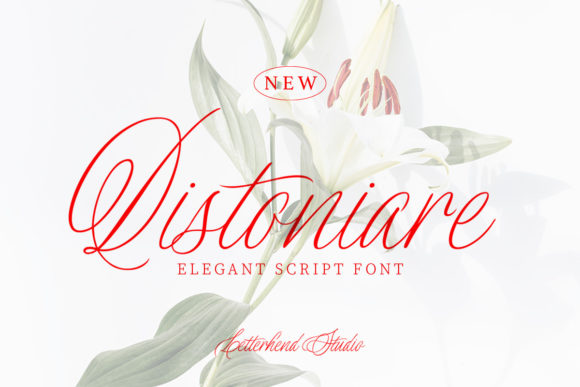
Welcome to the realm of Distoniare Script Font, a captivating creation from the mind of letterhend. This isn't just any font; it's an artistic masterpiece that transforms words into enchanting tapestries. Each letter is a brushstroke of elegance, flowing with the grace of a dancer. Get ready to witness the magic unfold as Distoniare takes your designs to breathtaking heights.
Unleash your creativity with Distoniare, the ultimate text font for weddings. Its delicate curves and enchanting swashes evoke the romance and charm of a timeless love story. Imagine your wedding invitations, menus, and programs adorned with Distoniare's graceful touch. Your guests will be captivated by the beauty and elegance of every word, creating an unforgettable experience.
Distoniare isn't limited to weddings; it's a versatile artist that shines in various settings. Envision your logos, branding, and marketing materials transformed with Distoniare's unique personality. Its presence will elevate your brand, attracting attention and leaving a lasting impression.
Dive into the world of fashion and makeup with Distoniare as your creative companion. Let your designs speak volumes with Distoniare's alluring lines. Create labels, packaging, and marketing materials that radiate sophistication and style. Distoniare will make your products stand out, captivating the hearts of fashion-forward consumers.
Embrace the beauty of stationery with Distoniare as your muse. Craft greeting cards, invitations, and stationery that carry a touch of personal charm. Your words will dance across the page, evoking emotions and leaving a lasting impression. Distoniare breathes life into your written messages, making them truly unforgettable.
Distoniare's versatility knows no bounds; it's a storyteller, a muse, and a work of art. Its presence adds a touch of elegance to novels, magazines, and books. Each page becomes a canvas, where Distoniare's graceful strokes paint pictures that ignite the imagination.
With Distoniare by your side, you'll discover a world of endless possibilities. Its beauty will captivate your audience, leaving them spellbound. Distoniare isn't just a font; it's an experience that will redefine your creative journey.